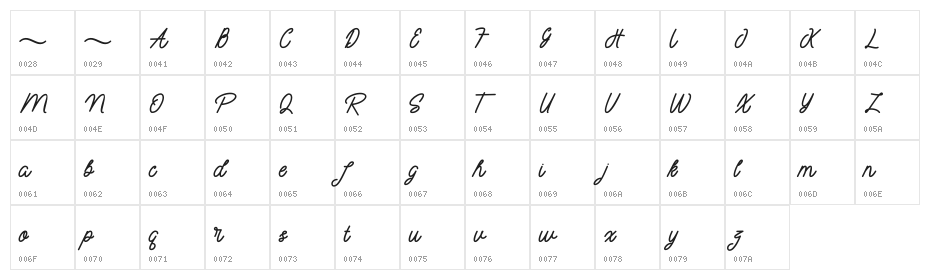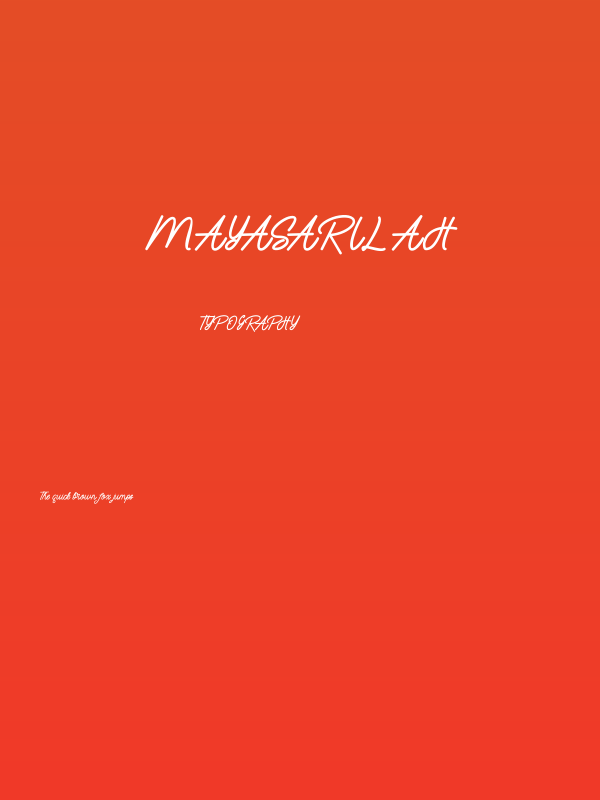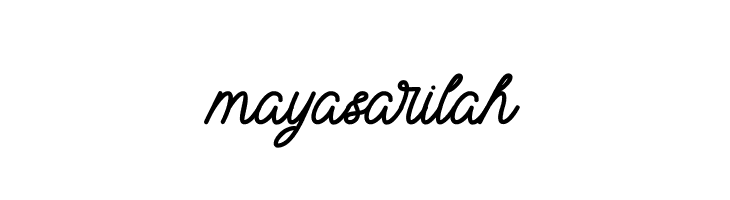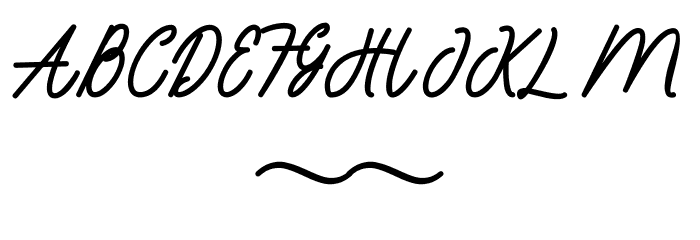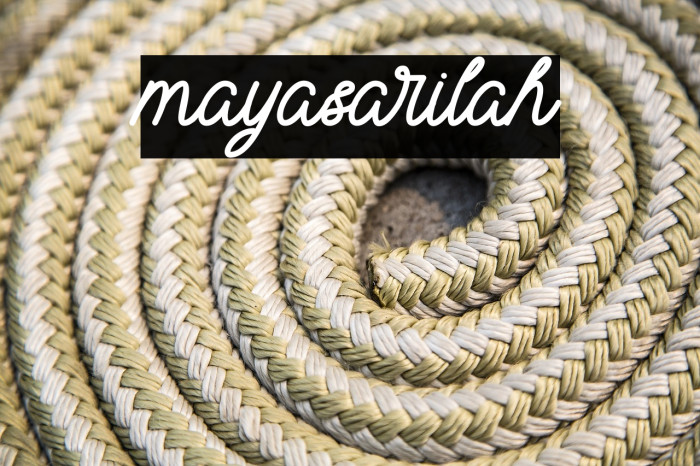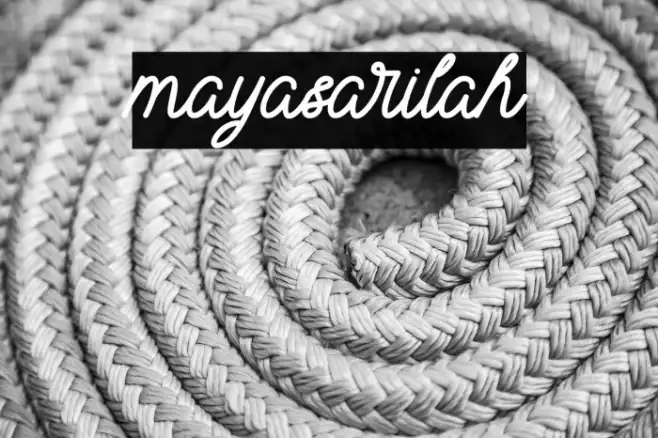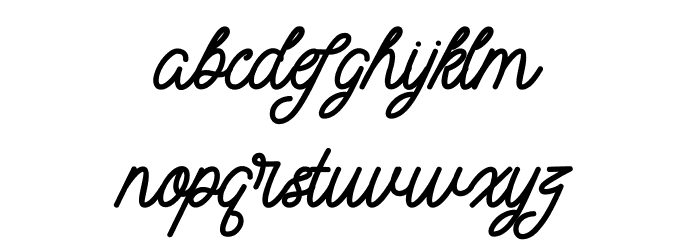
mayasarilah Font
mayasarilah Description
This font exudes a dynamic and flowing script style, characterized by its elegant and cursive letterforms. The strokes are smooth and connected, creating a sense of movement and fluidity. The uppercase letters are bold and slightly slanted, while the lowercase letters maintain a consistent flow with a touch of sophistication. The font's design is reminiscent of handwritten calligraphy, offering a personal and artistic touch. It is well-suited for creative projects that require a touch of elegance and style.